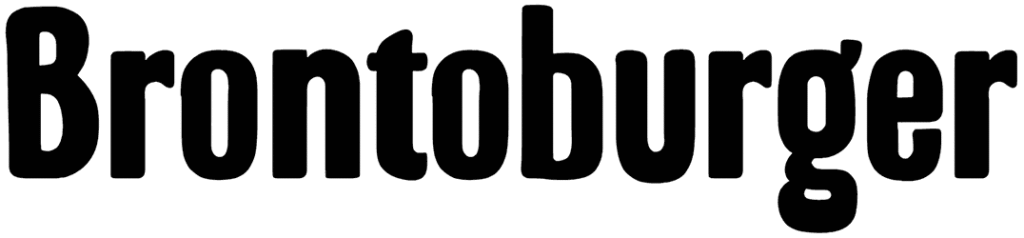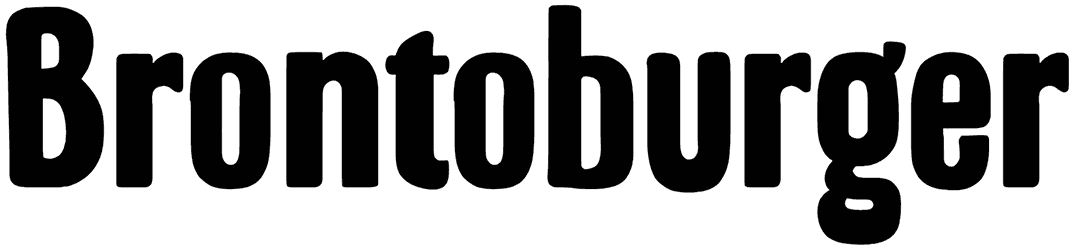
Brontoburger Font
Brontoburger would be the shining example of adding a touch of innovation to a casual sans serif font. This masterpiece turns your artwork such as book covers, magazines, illustrations, stickers, and editorial projects into a lovely piece of drama. Aside from all its numerous benefits, this rounded font has the real potential to add a sense of youth, vivacity, jauntiness, and dynamism to your work.
Take a big bite out of Brontoburger! This 3 member family is defined by its loose, laidback appearance but stops short of being too rough around the edges. Its softened corners produce a warm, friendly look suitable for many applications. Brontoburger is playful enough to be featured on toy packaging but suitable for business cards as well. Try the 3D Extrude version for a book cover or poster.